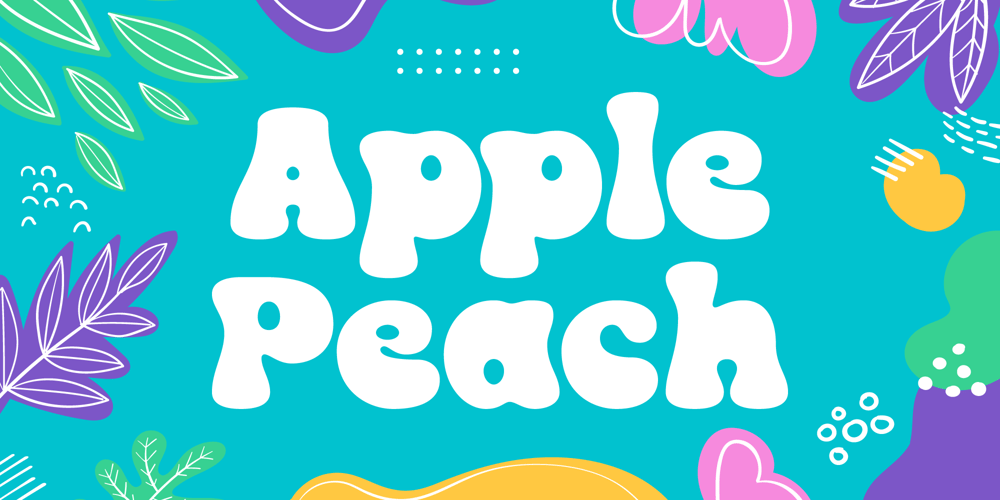
Apple Peach
Apple Peach font
Apple Peach Font Family was designed by Bakhrudin Ja’far and published by Jafar07. Apple Peach contains 1 styles and family package options. Apple Peach is a font that is designed cubby and childish but can also be easily used in the modern era who want to have a fat and smooth design that has a high level of legibility. The advantage of this font is that it can be used for various product designs according to your needs.What did you get? Regular font Uppercase & Lowercase Numbers & Punctuation Multilingual Support Works on PC & Mac Simple Installations